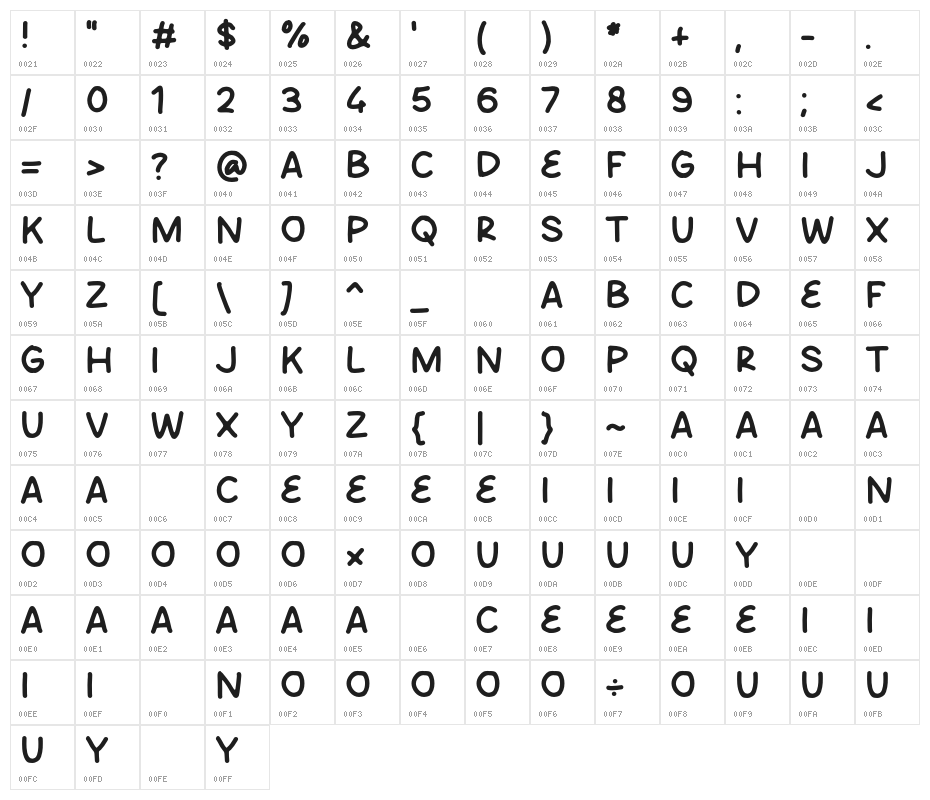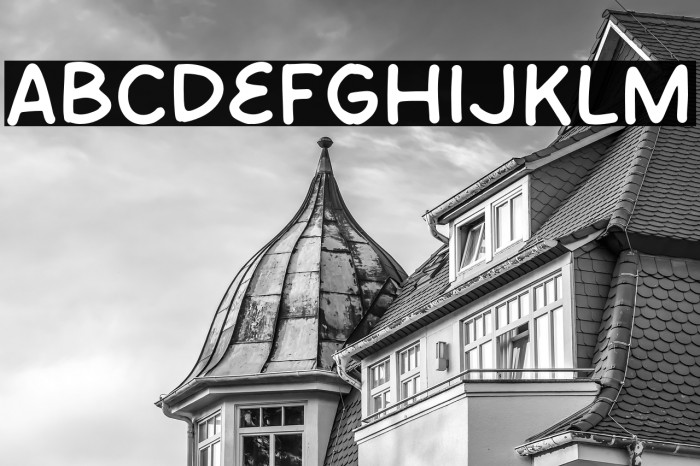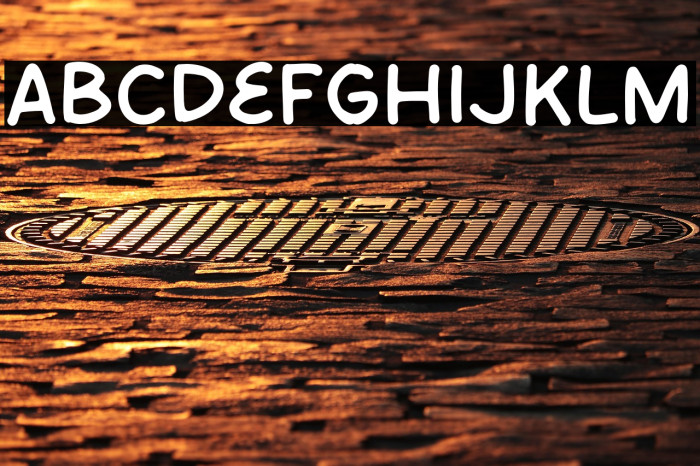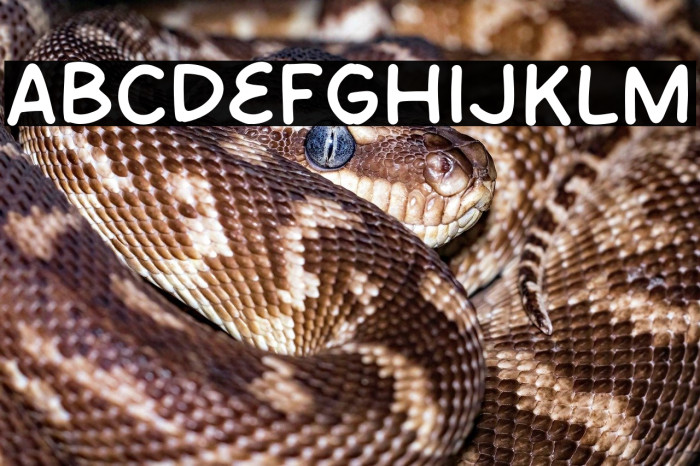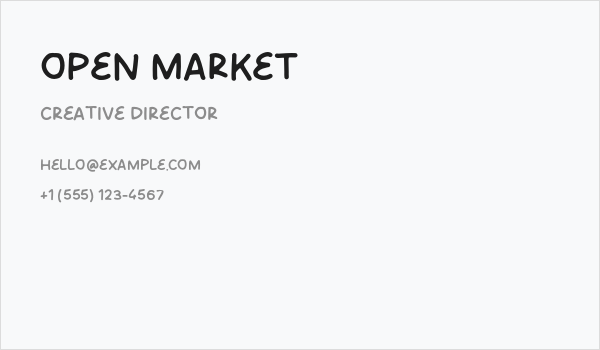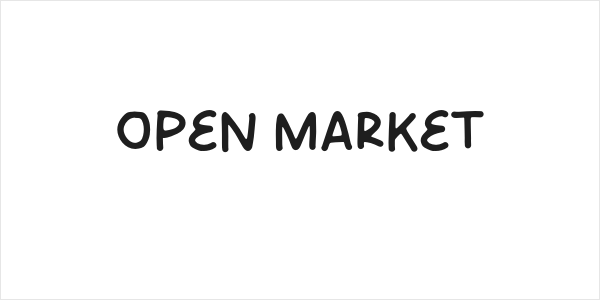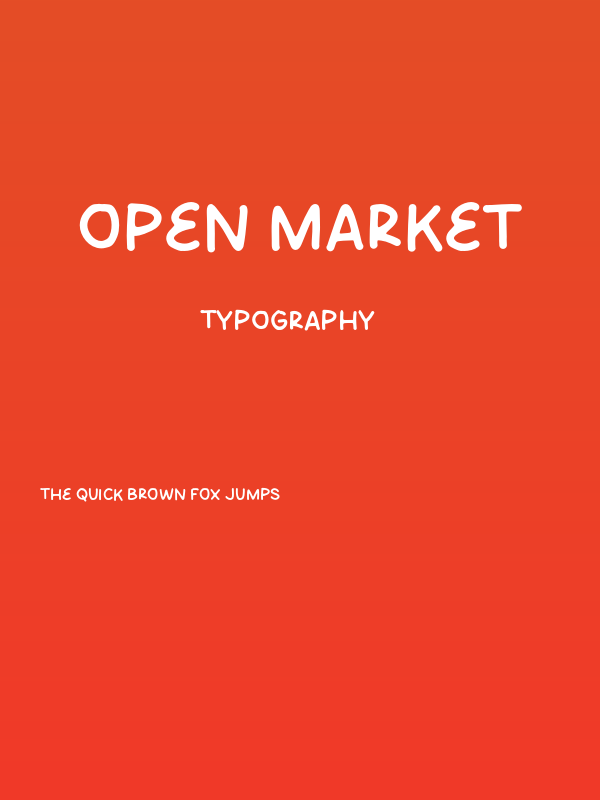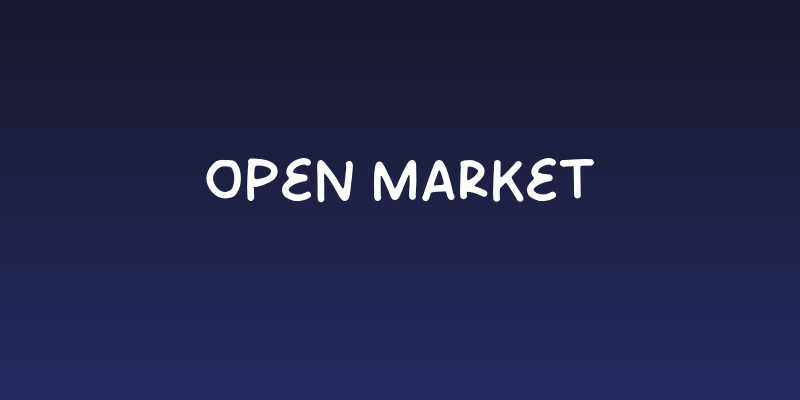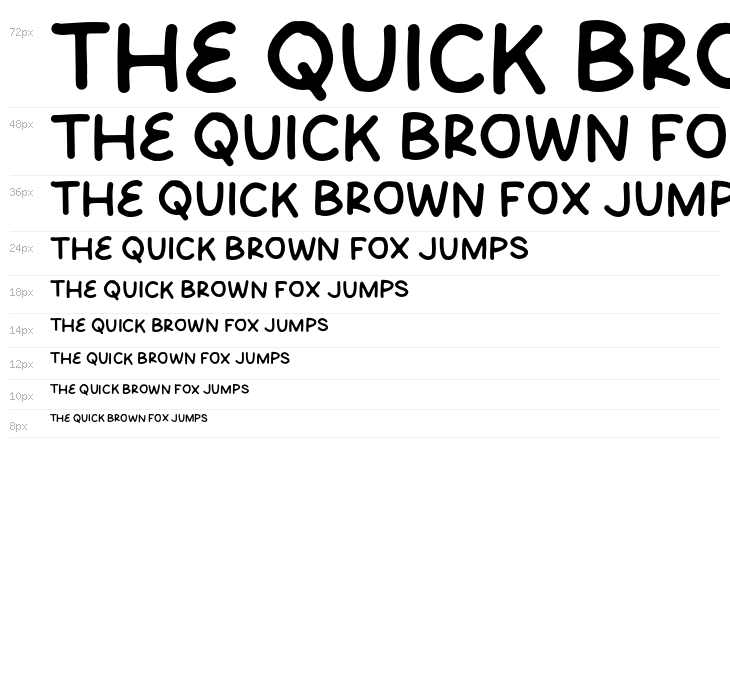
Open Market Font
Open Market Description
This font features a playful and casual handwritten style, characterized by its rounded and slightly irregular letterforms. The strokes are consistent in thickness, giving it a uniform appearance while maintaining a friendly and approachable vibe. The characters are well-spaced, ensuring readability, and the overall design exudes a sense of informality and warmth. This font is versatile, suitable for projects that require a personal touch or a relaxed atmosphere. Its simplicity and charm make it ideal for a variety of creative applications.
| Proposed Projects | Ideal for greeting cards, children's books, casual branding, and social media graphics. |